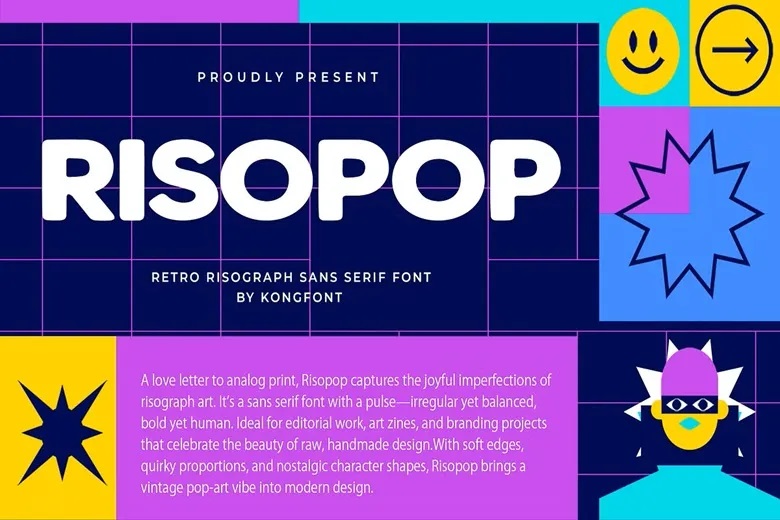
Risopop Font
Risopop is a retro-inspired sans serif typeface founded on the quintessential imperfection and flamboyant nature of risograph printing. Risopop adds old-time design enthusiasm and vintage screen printing style to contemporary design projects with its blocky forms, rough edges and vintage screen print aura.
Good in posters, zines, packaging, album artwork, editorial designs, branding, which desperately requires personality, Risopop offers the clean line of sans serifs with the whimsical randomness of riso textures. It is made to shine without losing that lo-fi handmade quality.
Risopop Sans Serif Font